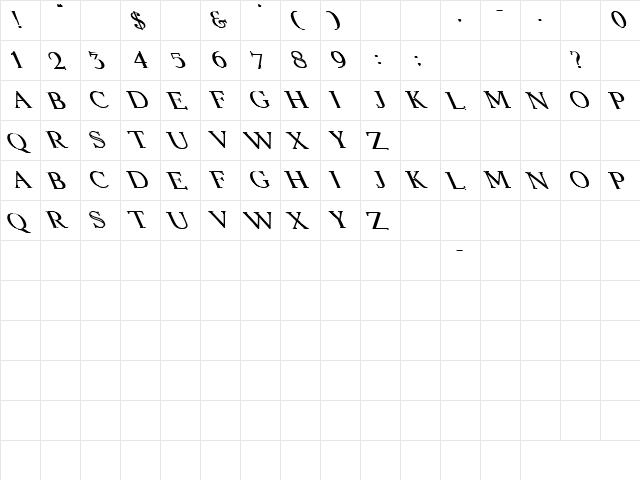
Night In The Ruts 5 Bold
Design Context for Night In The Ruts 5 Typeface
Night In The Ruts 5 offers clean, dependable letterforms without strong stylistic allegiance, making it a practical choice for designers who need flexibility. Its bold stroke weight gives it real presence on the page.